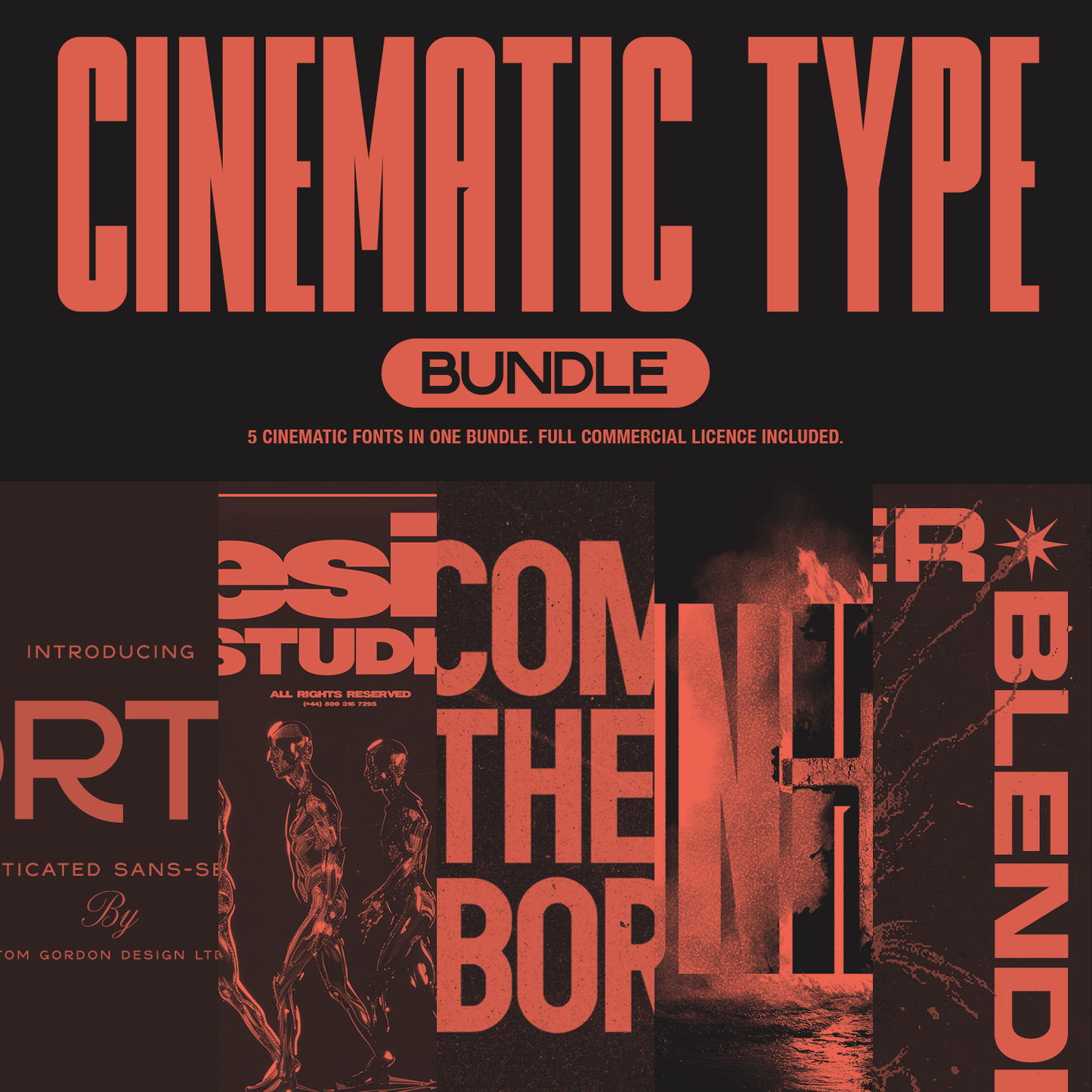
Cinematic Type Font Bundle
“Cinematic Type Bundle” includes 5 of my unique sans-serif fonts! This set of sans-serif fonts was created for lovers of clean modern graphics. These bold and cinematic fonts are perfect for a vast array of applications from title graphics to merchandise, logos and much more.
Dethrone
Neighbor
Girthy Ultra
Blender
Porter Sans (2 weights)